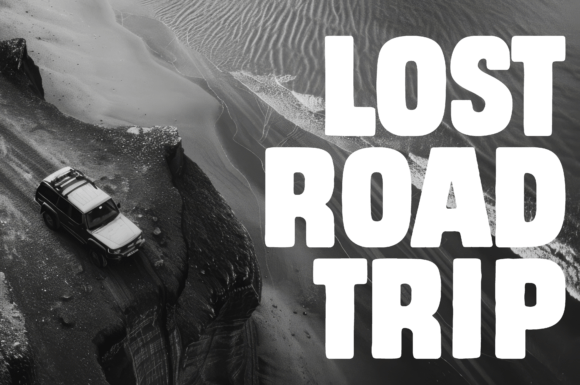
Bloob Font
A bold statement in every letter, this geometric sans serif font brings a playful twist to modern design. With its chunky curves, smooth forms, and minimalistic flair, it’s made to stand out — whether you’re crafting logos, posters, headlines, or bold brand visuals.
This typeface comes in three dynamic styles:
Regular for strong structure, Italic for forward-moving energy, and a rare Reversed Italic for an unexpected edge. Each style is carefully balanced to keep things groovy yet clean, funky yet functional.
Perfect for designers who want to inject character into clean layouts — without sacrificing clarity.